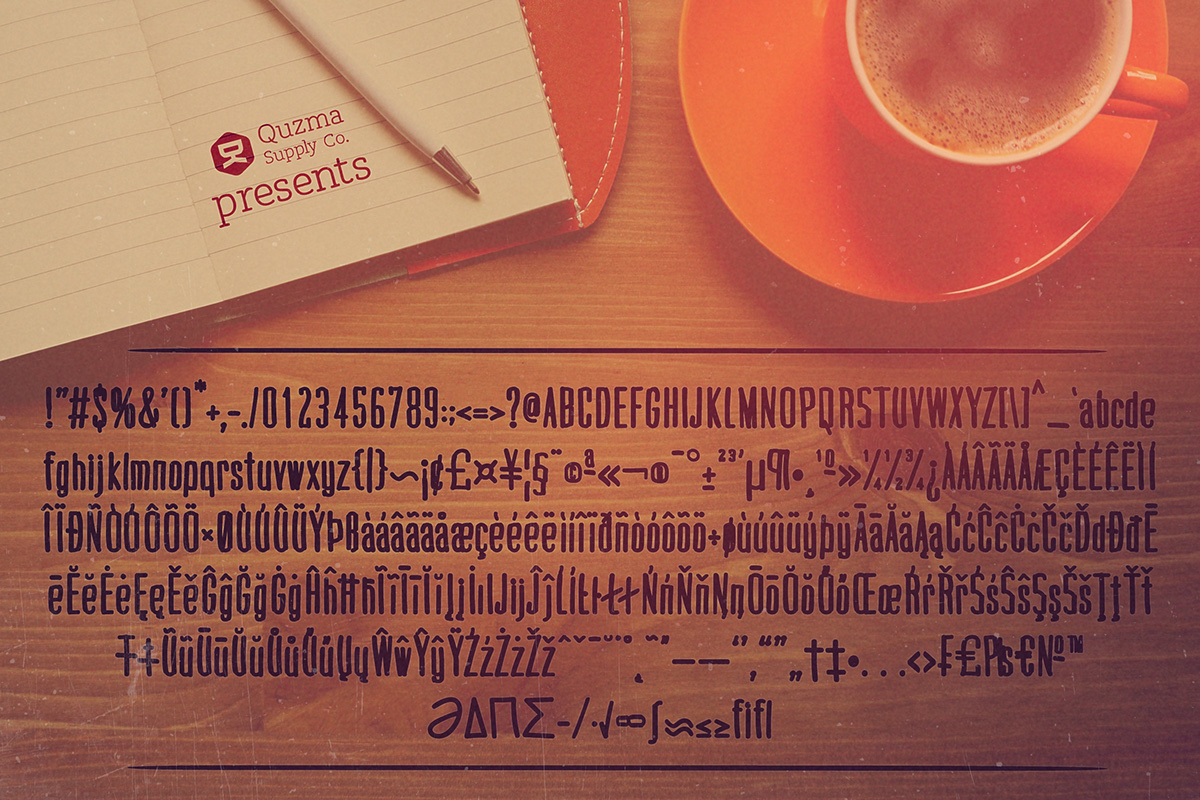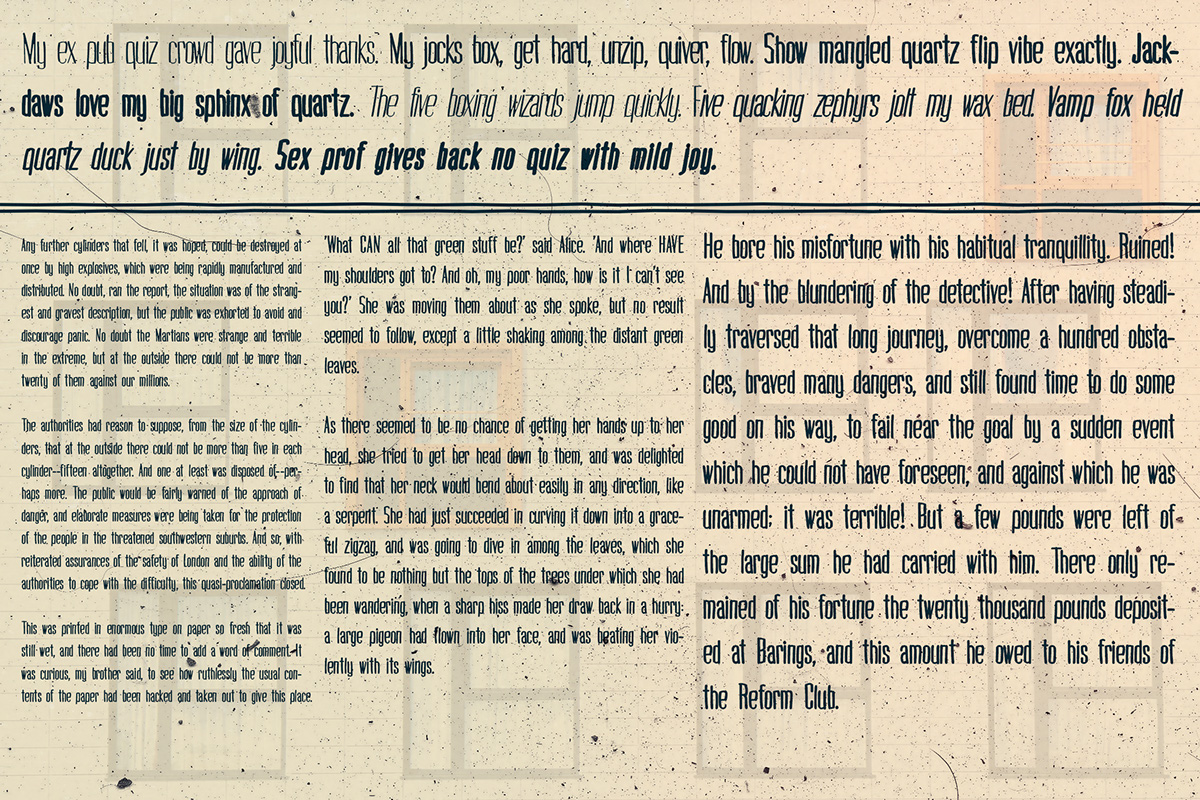
Cogswell Condensed | Handdrawn Font
I’m proud to introduce to you Cogswell Condensed, a handmade sans serif font, ideal for vintage signs and headers, logos, t-shirts, quotes or replicating handwritten marker text.
5 weights (Thin, Regular, Semi-Bold, Bold, Black)
348 kerned glyphs each
Rich multilingual support